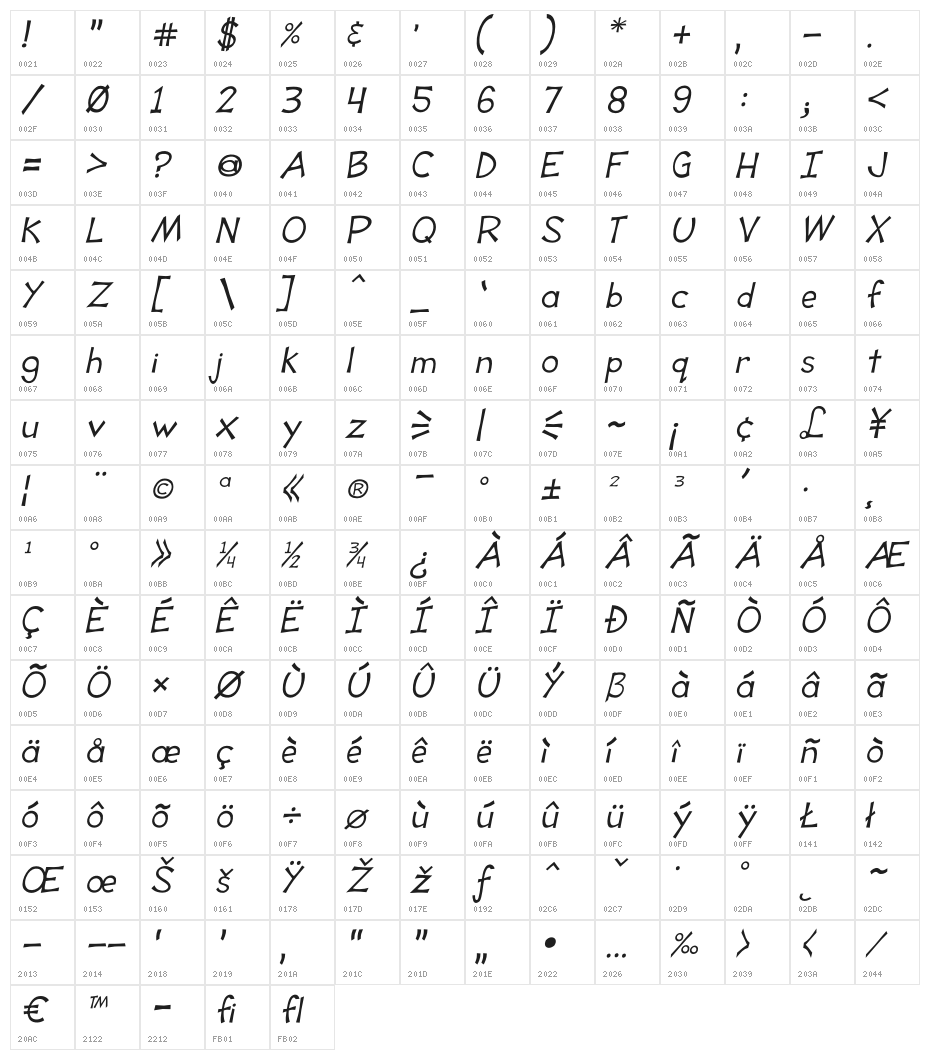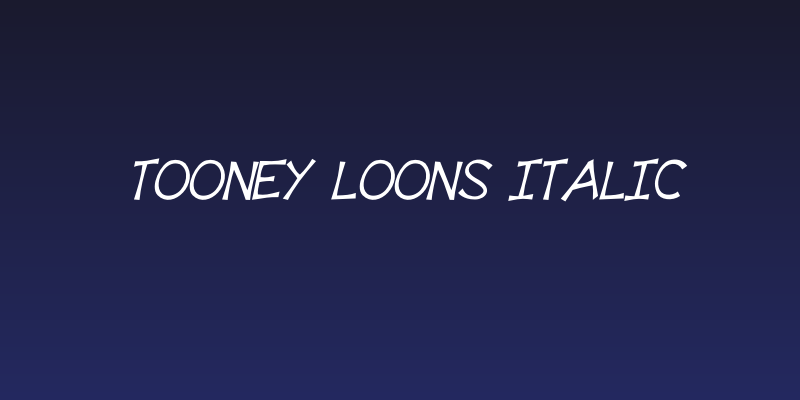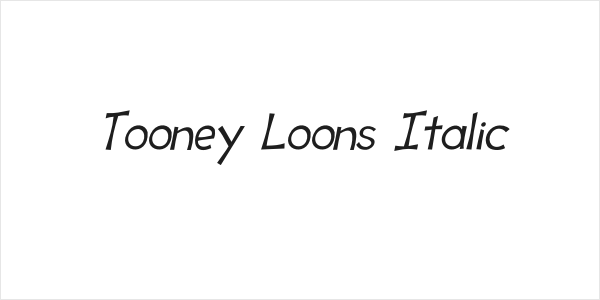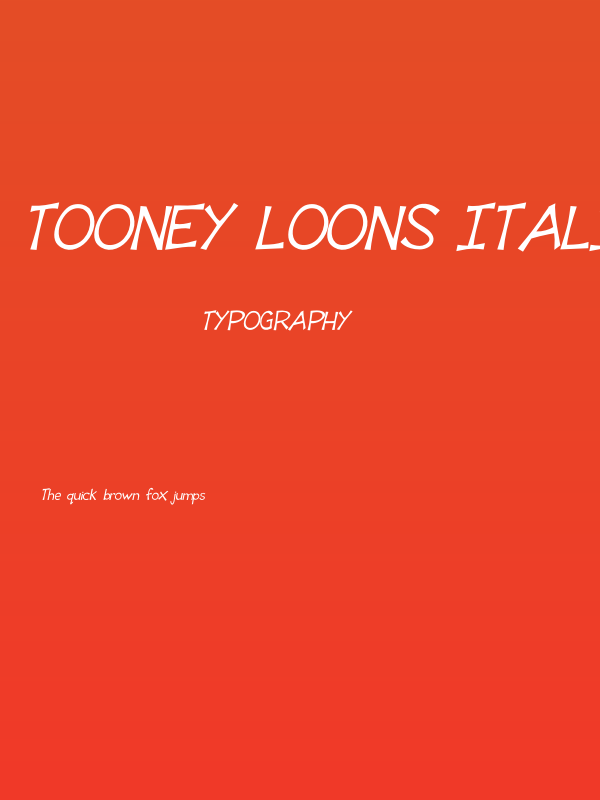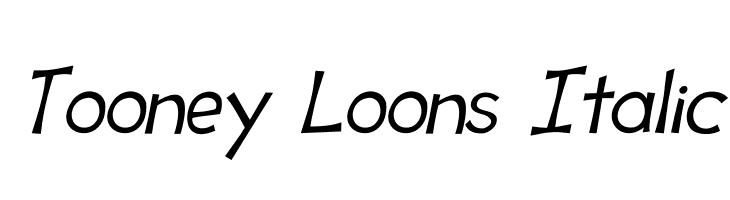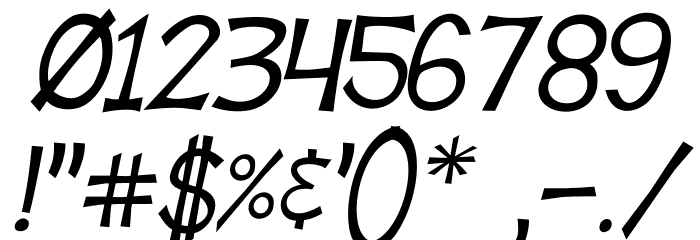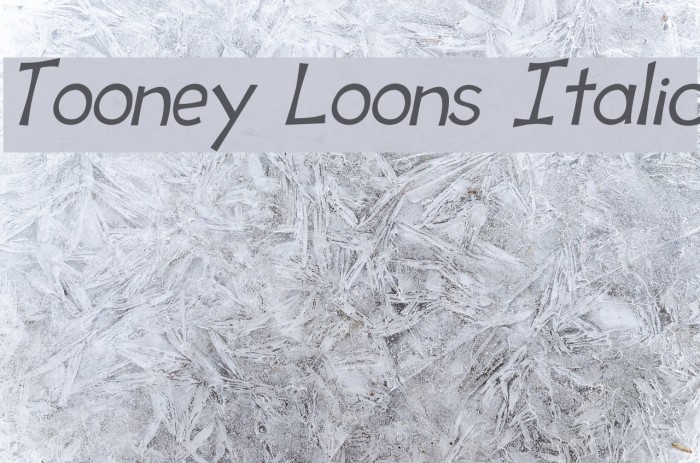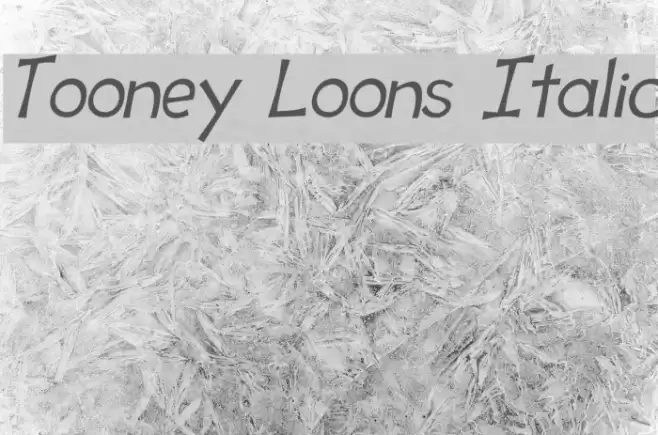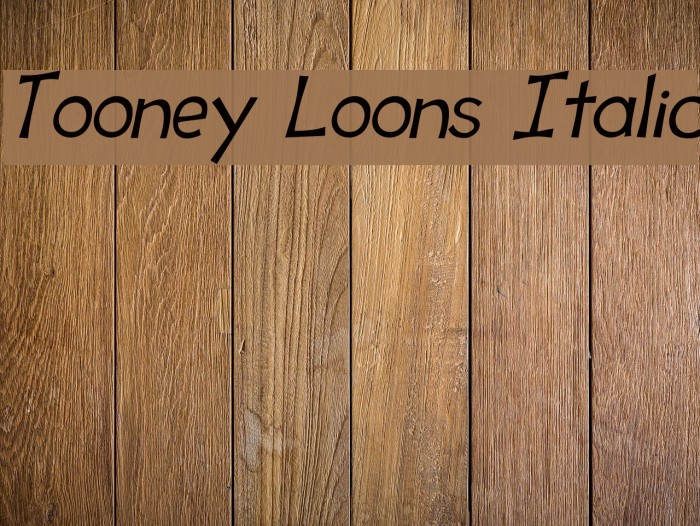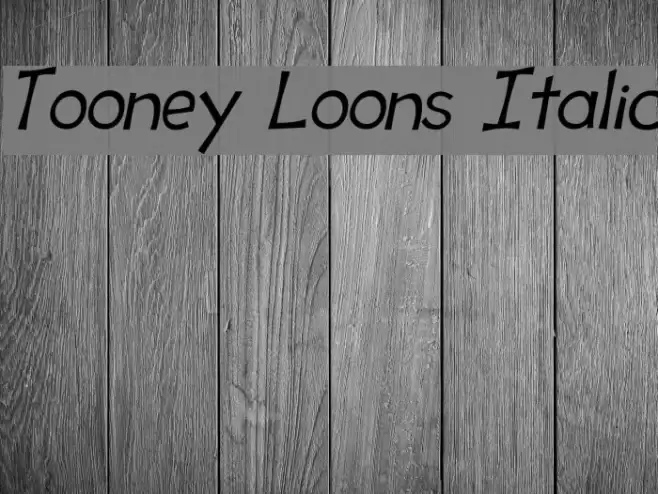
Tooney Loons Italic Font
Tooney Loons Italic Description
This playful and dynamic font features a whimsical, cartoon-like style with a slanted, italicized appearance. The characters are bold and slightly irregular, giving them a hand-drawn feel. The uppercase and lowercase letters maintain a consistent style, with exaggerated curves and angles that add to the font's lively personality. Numbers and special characters follow the same playful design, making the font suitable for creative and informal applications. The overall look is energetic and fun, perfect for projects that require a touch of humor and lightheartedness.
| Overall Style | Playful, Cartoonish |
| Use Case | Headlines, Logos, Informal Text |
| Proposed Projects | Ideal for children's books, comic strips, playful branding, and party invitations. |